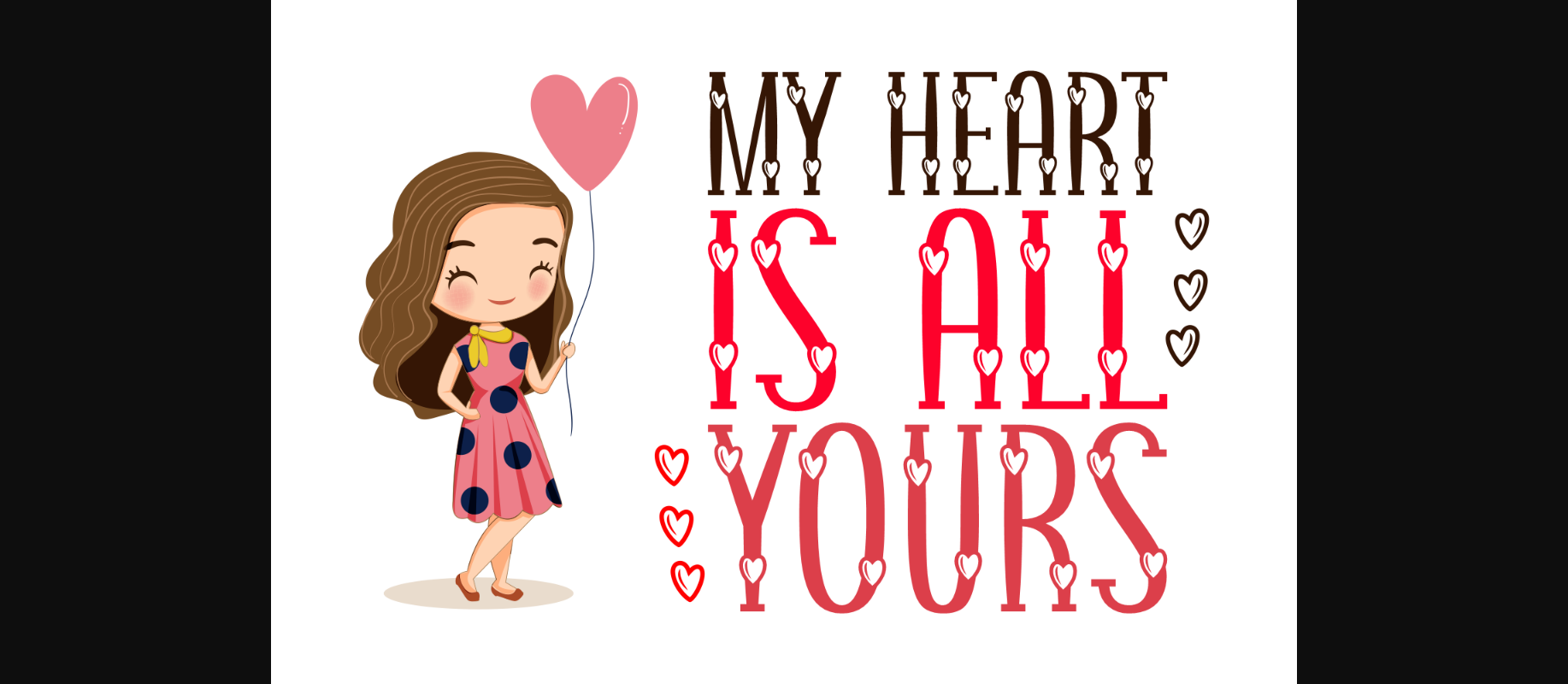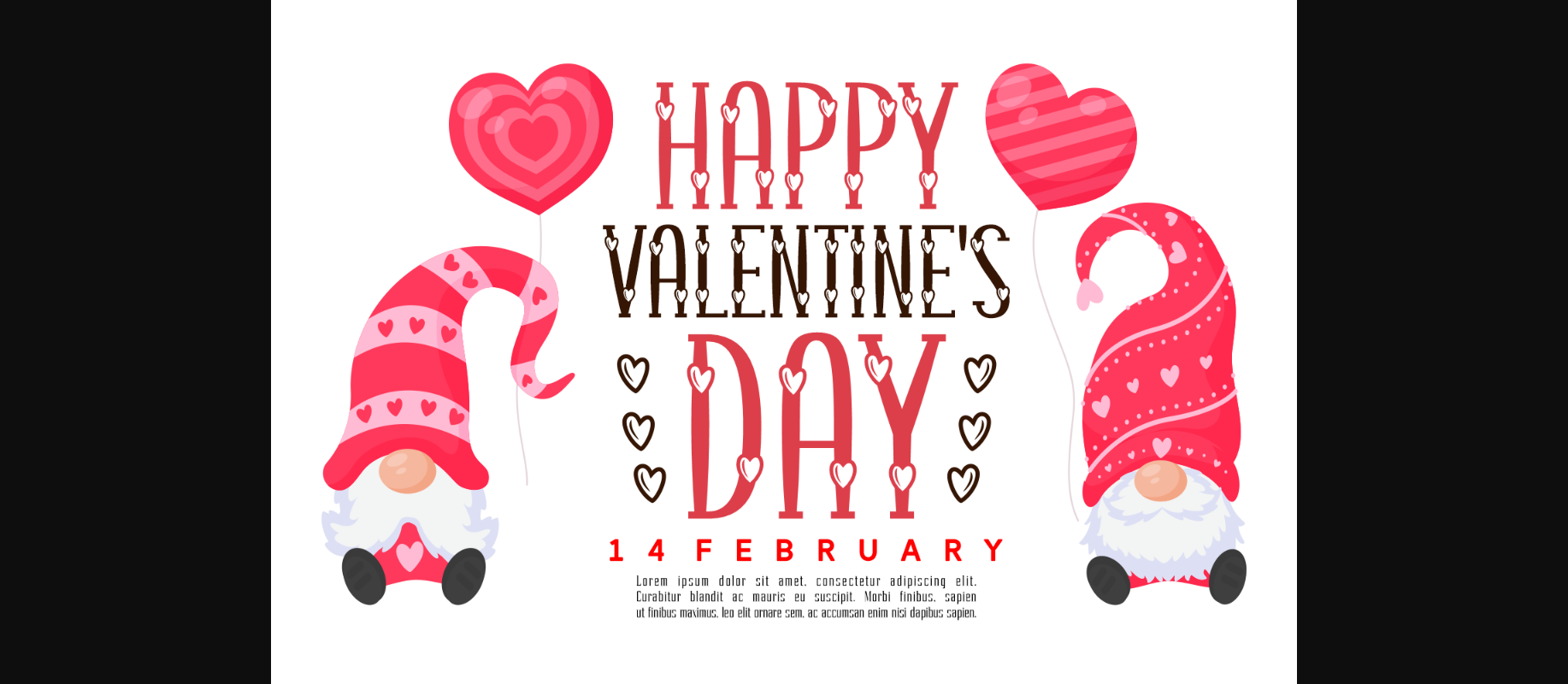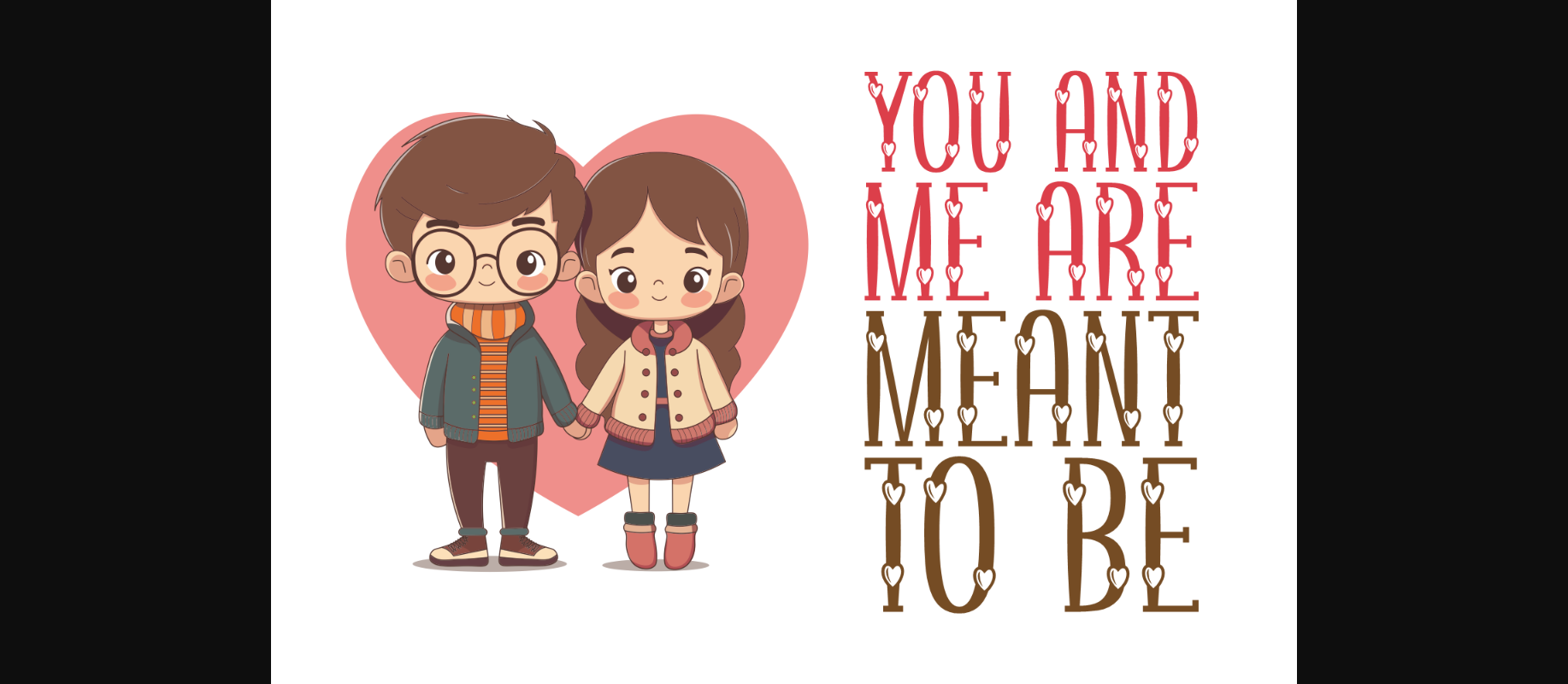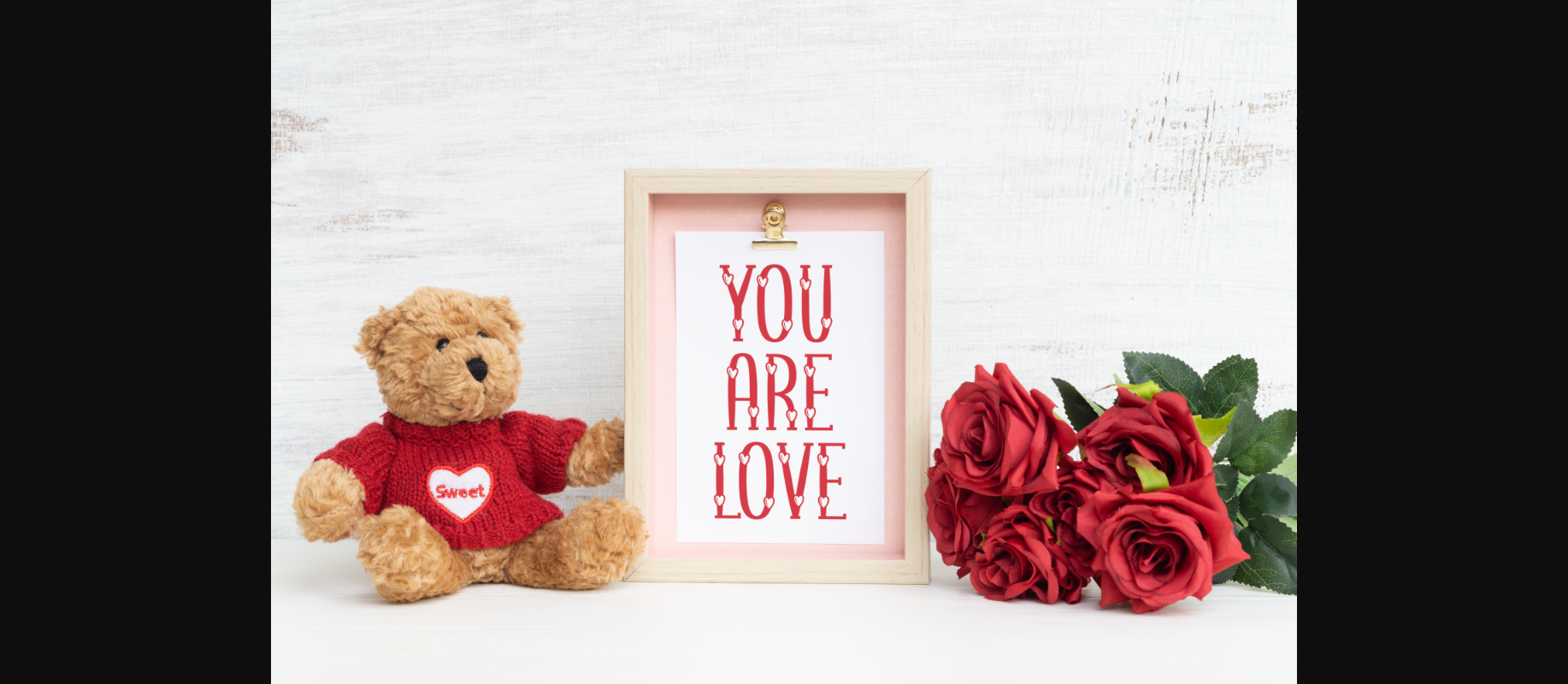
About My Heart is All Yours Font
My Heart is All Yours is an enchanting decorative font brimming with love and whimsy. Its playful characters and heart-shaped motifs infuse designs with warmth and affection. Ideal for greeting cards, wedding invitations, and romantic projects, this font captures the essence of heartfelt expressions with its charming style.